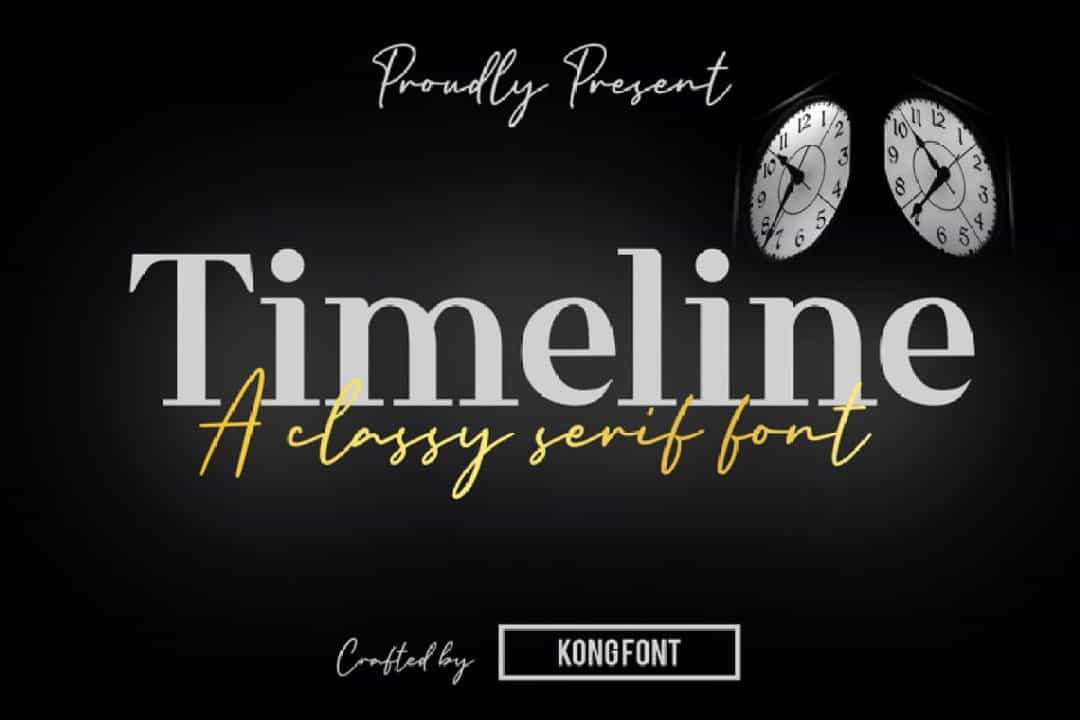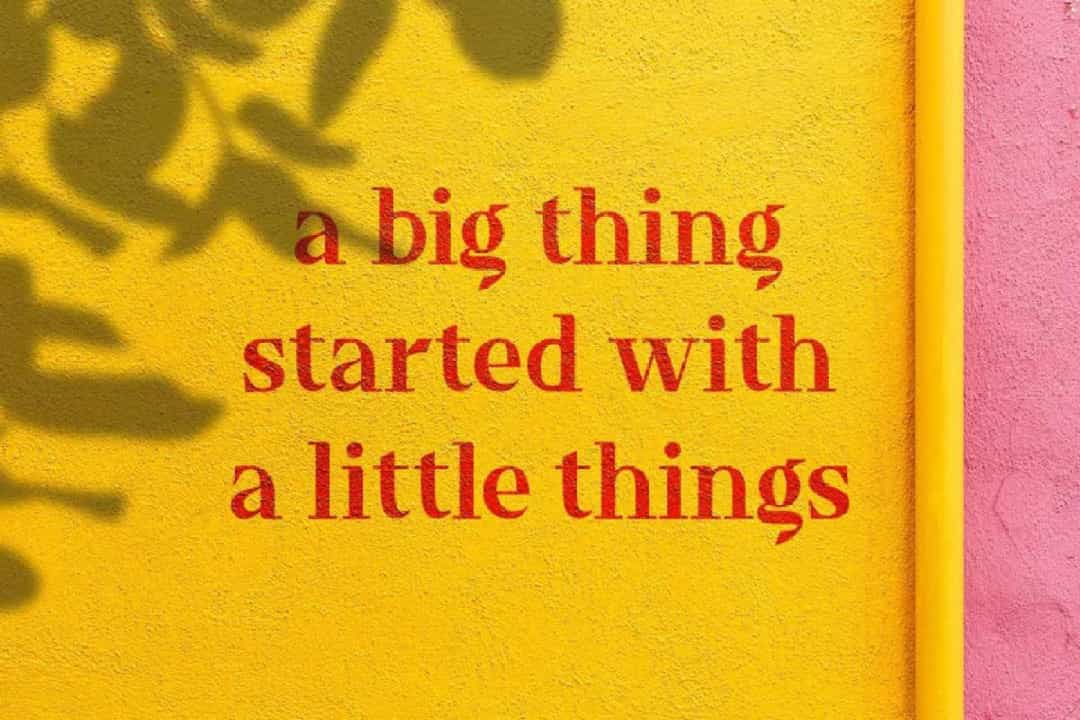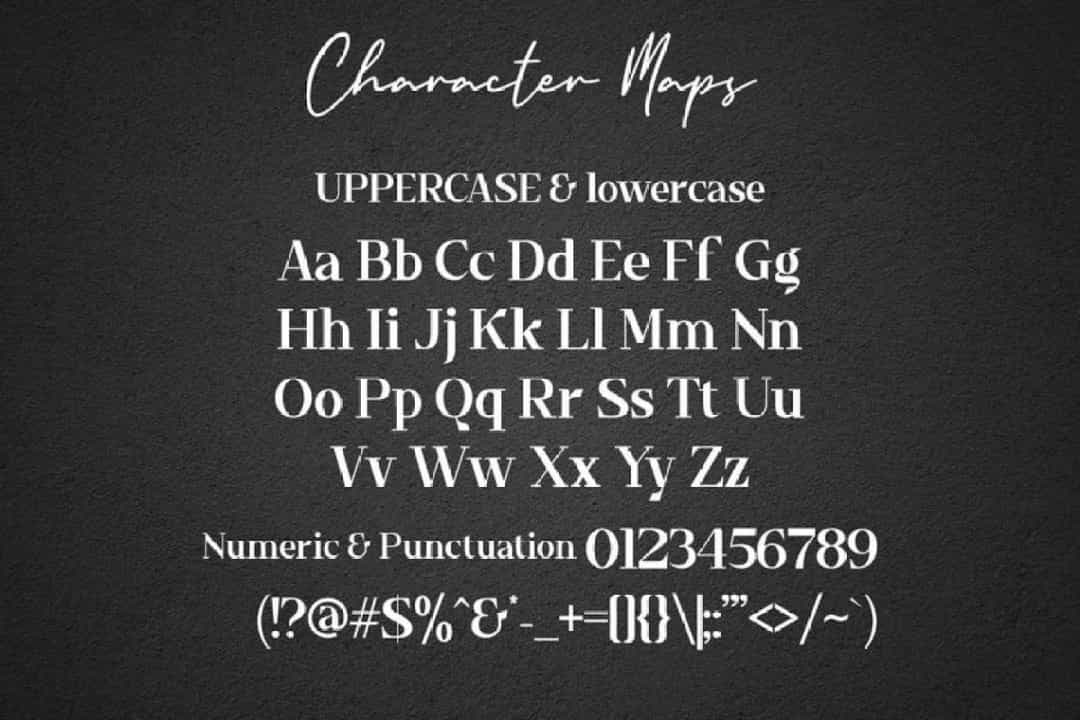
This font has a very interesting design where the strokes of the letters are thick while the horizontal parts are thin, which results to images that have a nice level of detail and a certain level of curve that looks good on screens that have a moderate to large size. The use of timeline font can enrich headlines of articles, brands, posters, editorials, etc.